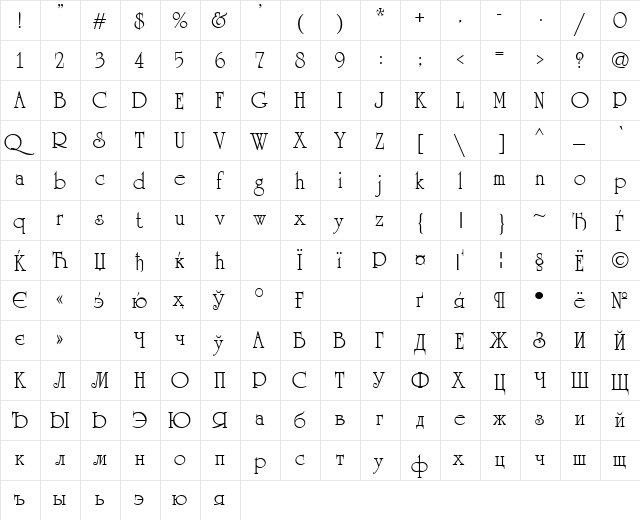
CyrillicUniversity Normal
CyrillicUniversity takes a measured approach to typography — its balanced proportions and neutral character make it a reliable workhorse for both digital and print work.